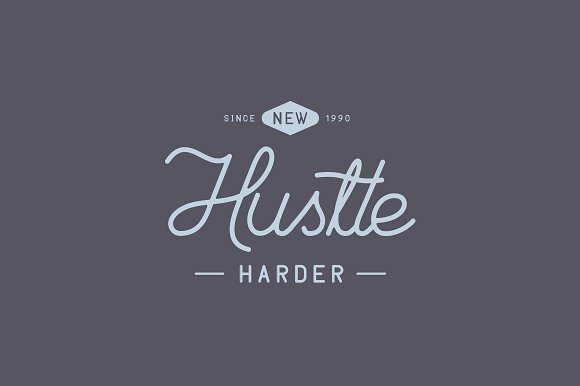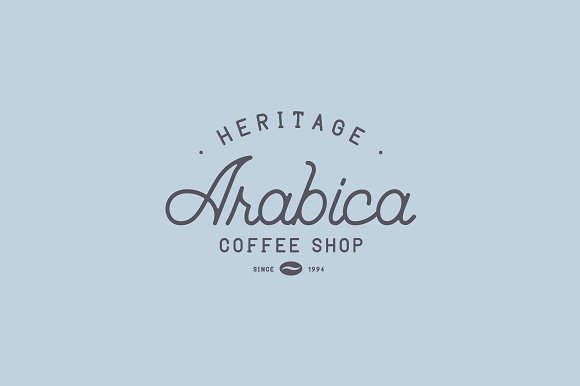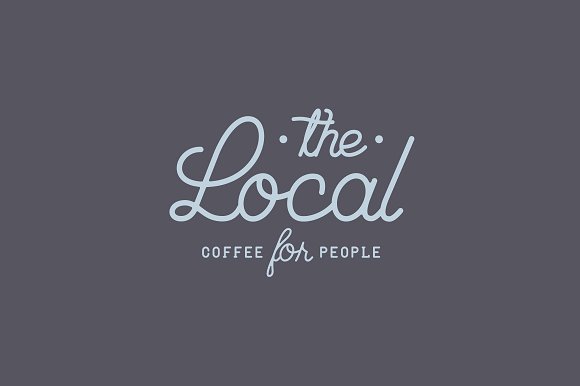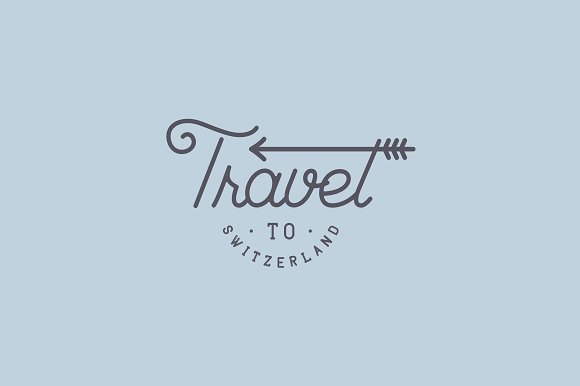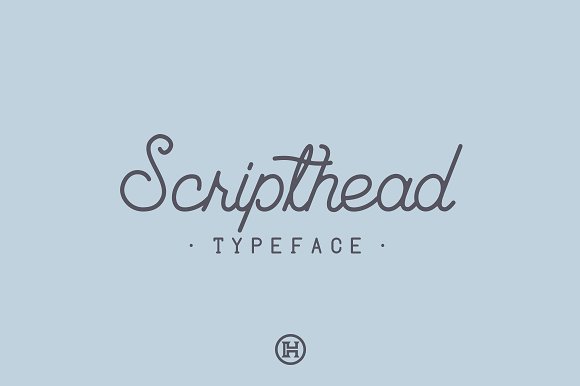
Scripthead Typeface
Inspired by traditional script lettering that typically used in vintage-themed designs. Scripthead is suitable for any project that requires the natural hand lettering feel as the core design elements; such as logo, wedding invitation, greeting card, poster, etc.